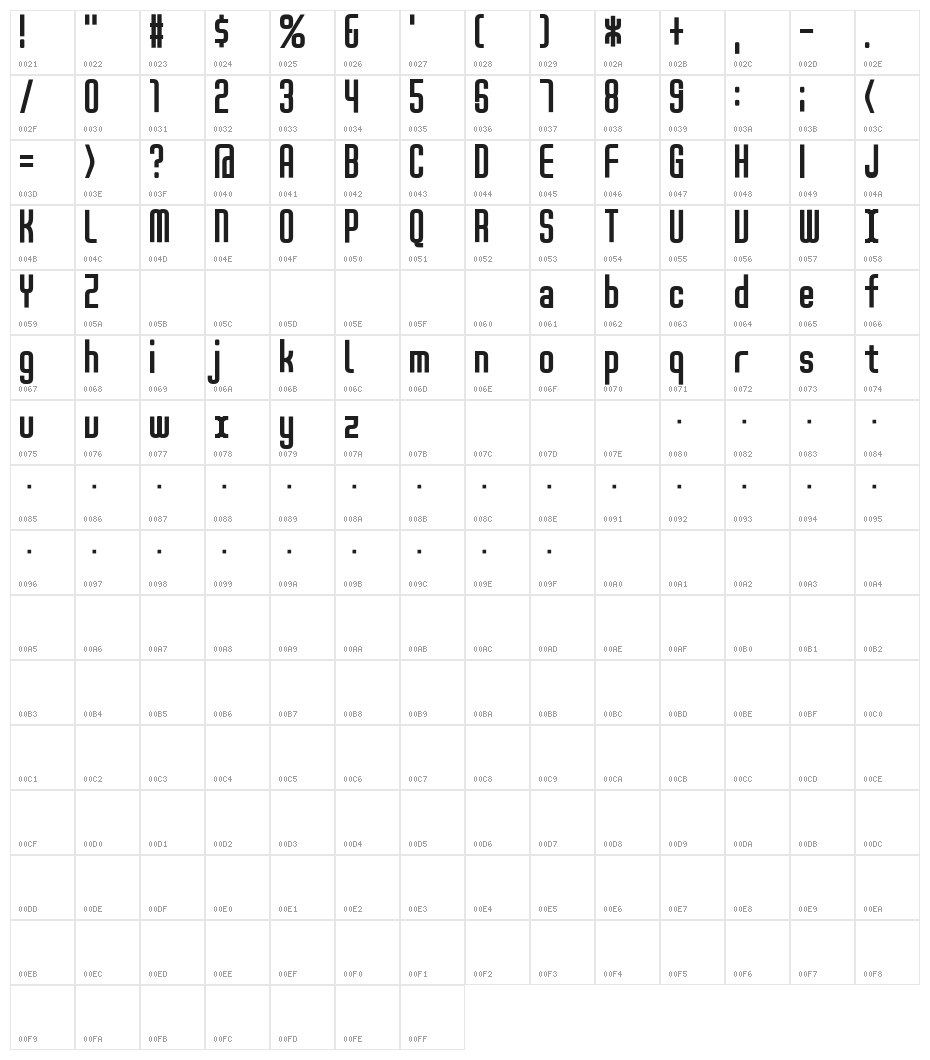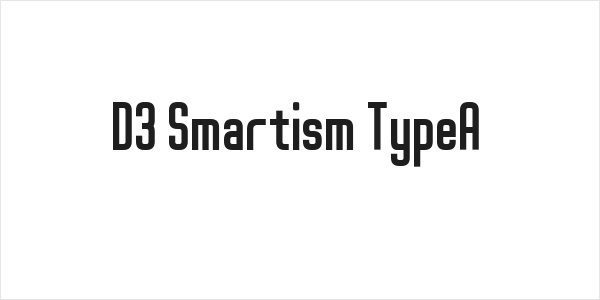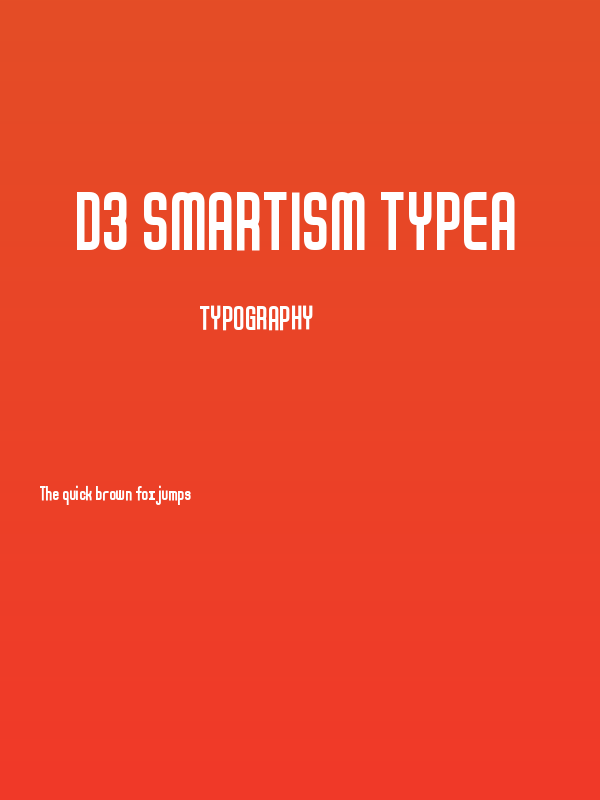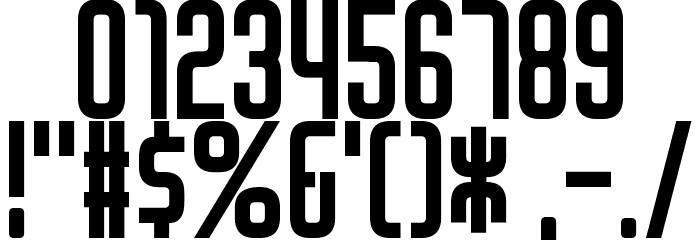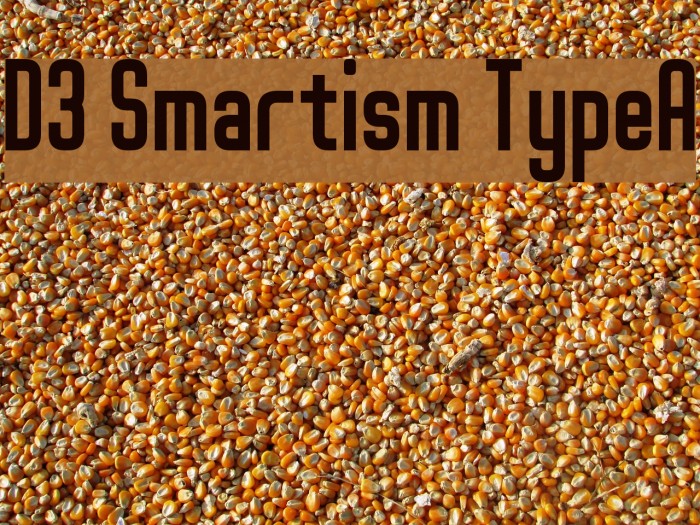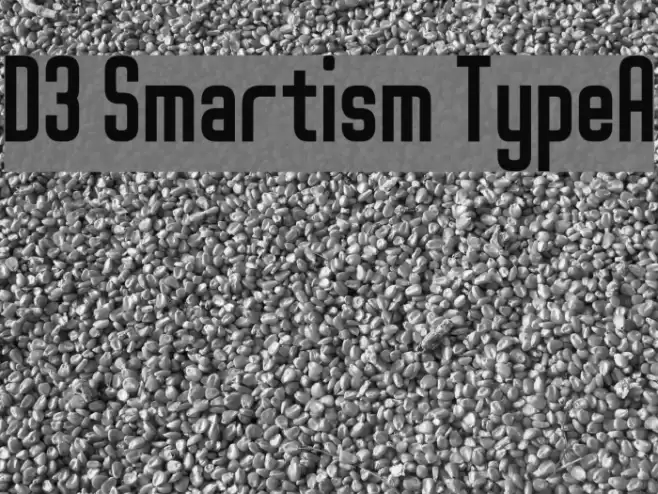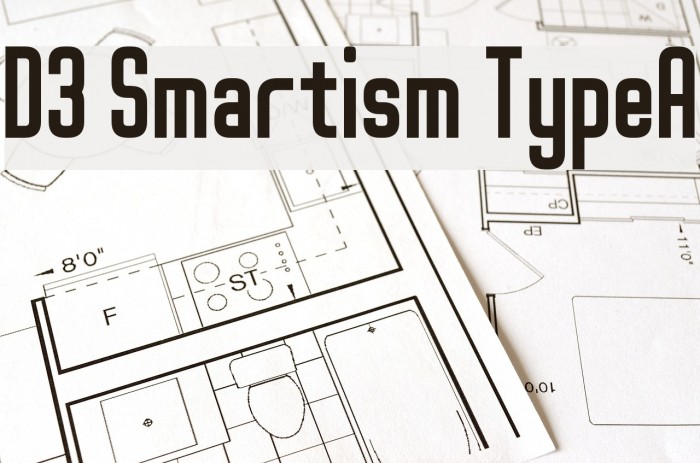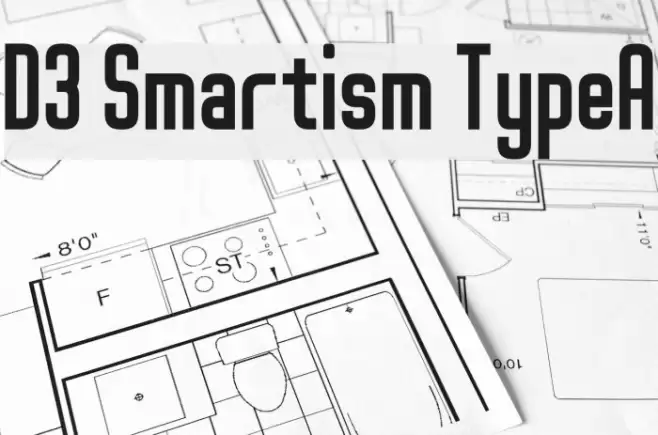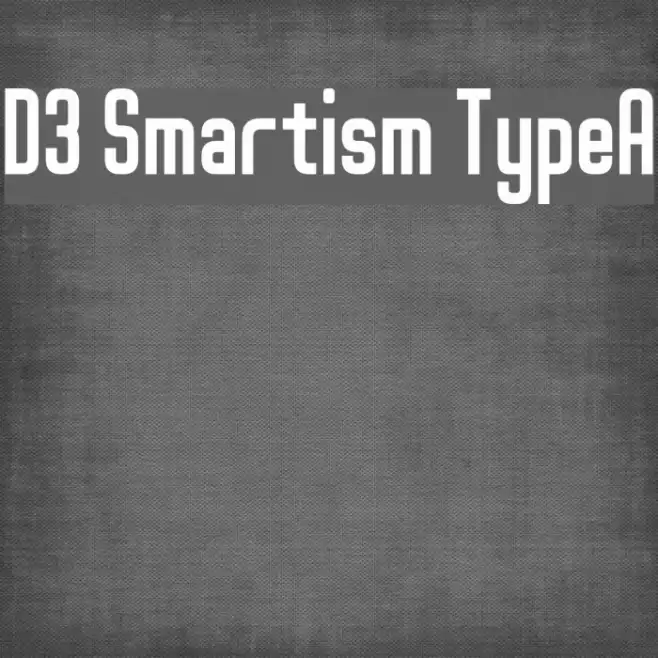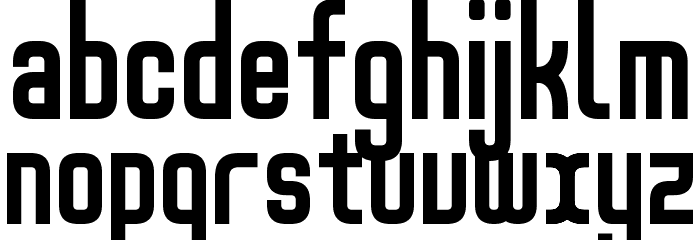
D3 Smartism TypeA Font
D3 Smartism TypeA Description
This font features a bold and modern design with a strong geometric influence. The characters are uniformly thick, creating a consistent and cohesive look across both uppercase and lowercase letters. The font's structure is clean and straightforward, with a slight futuristic touch that makes it stand out. The numbers and special characters maintain the same boldness, ensuring readability and visual impact. Its distinct style is suitable for projects that require a contemporary and assertive appearance.
| Proposed Projects | Ideal for branding, headlines, posters, and digital interfaces where a strong visual presence is needed. |